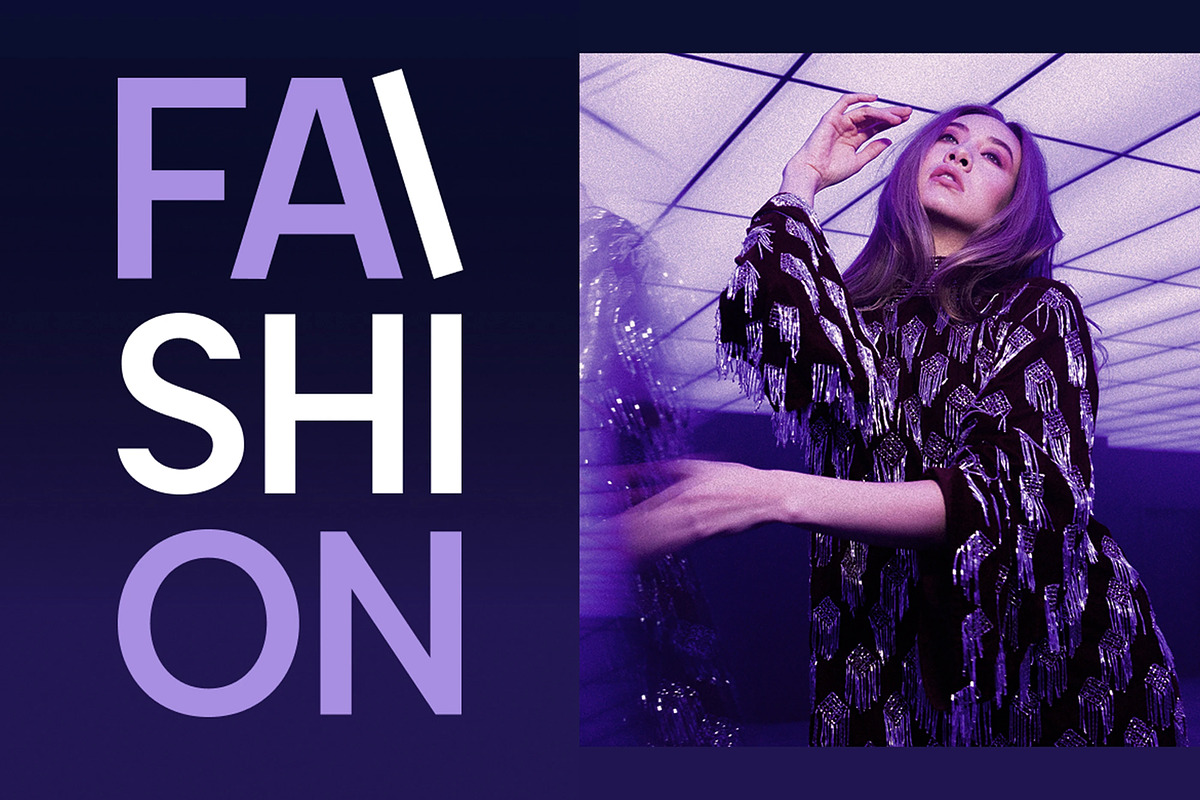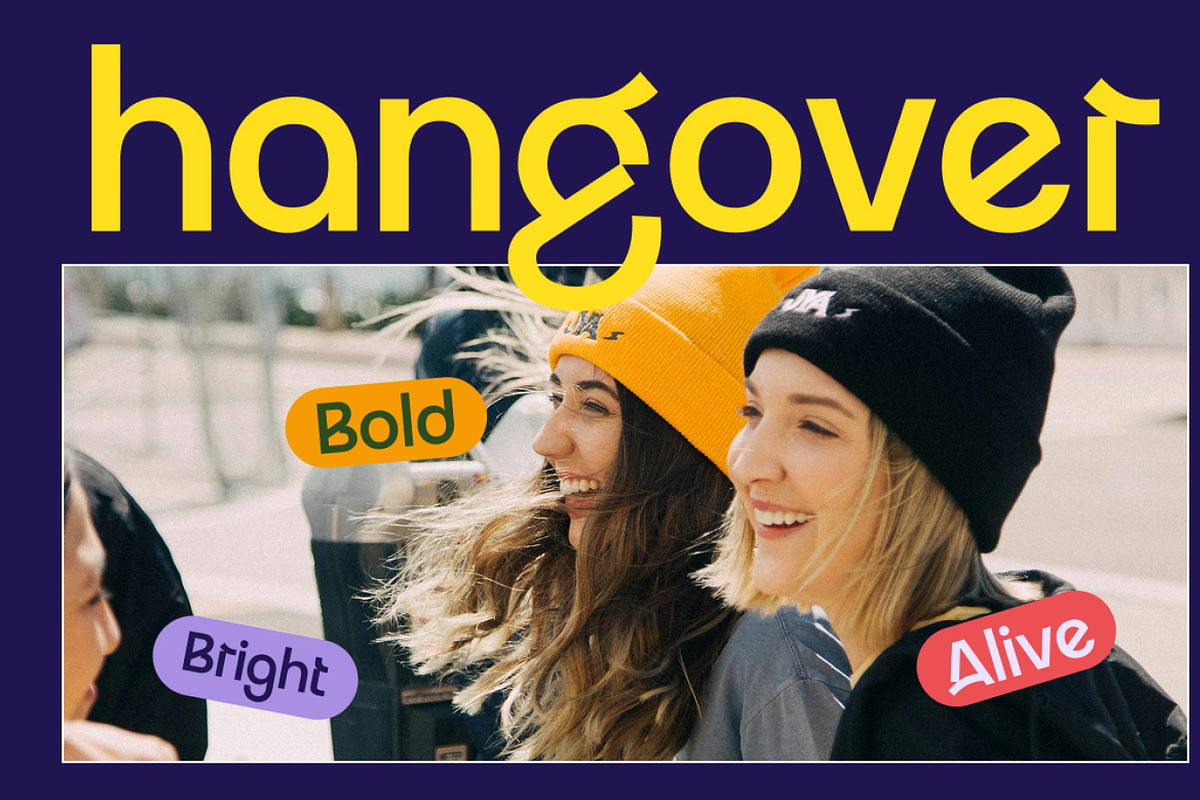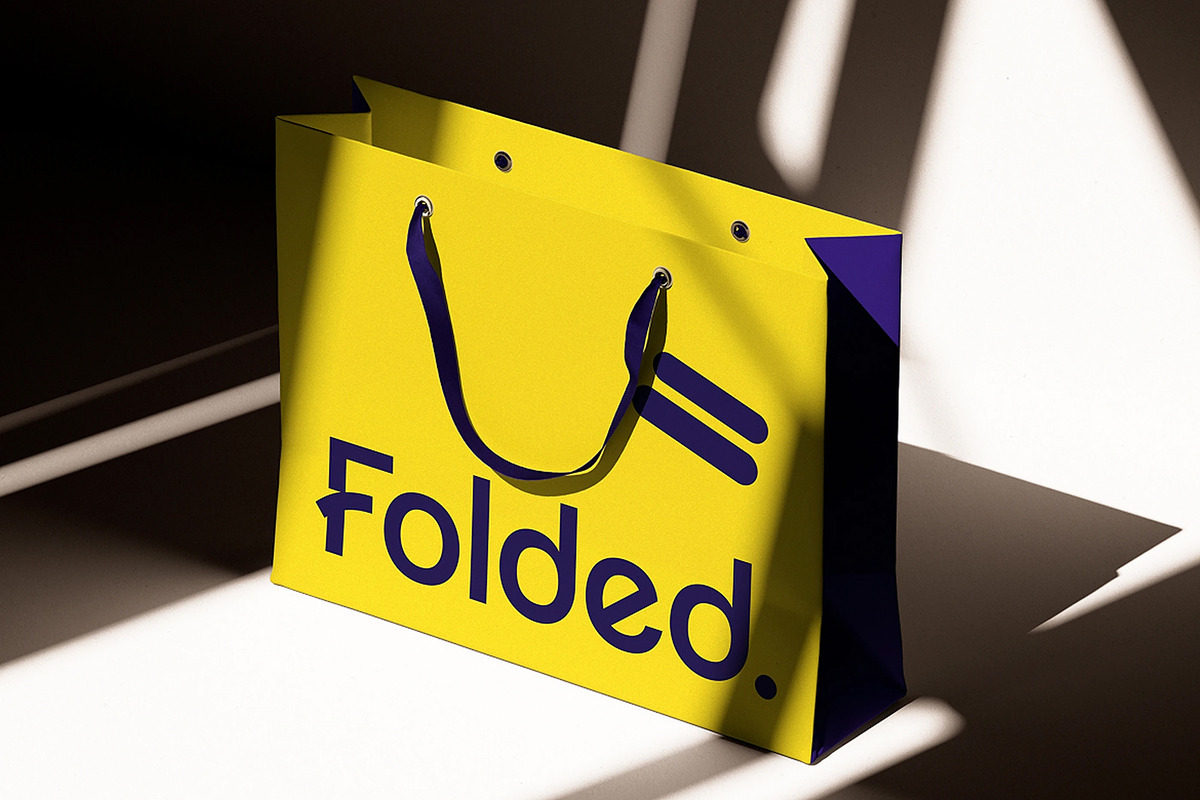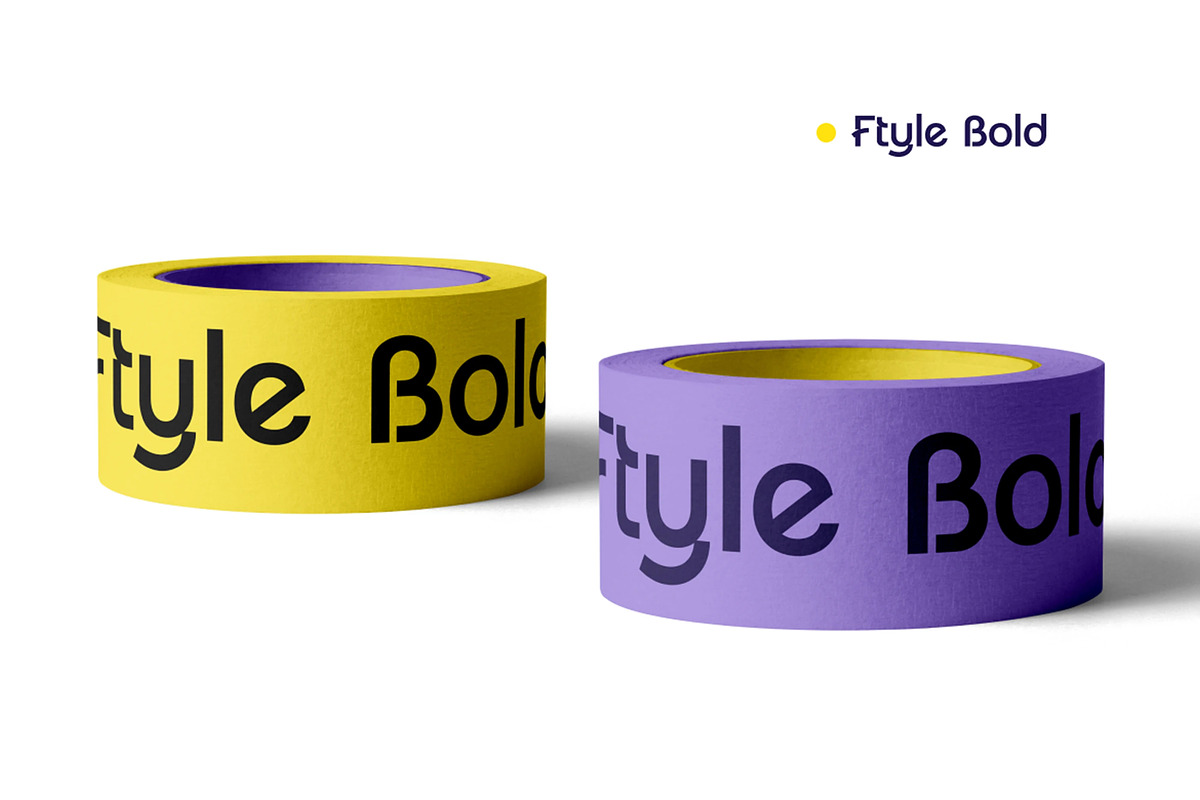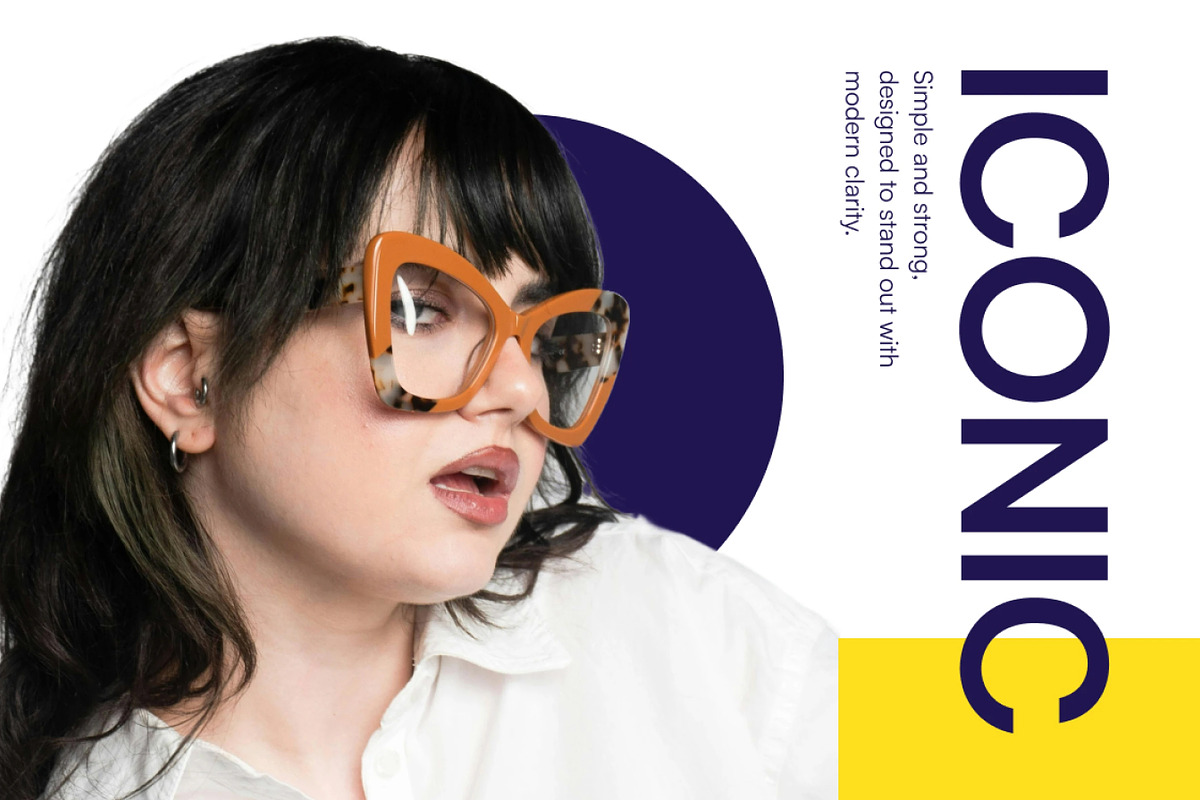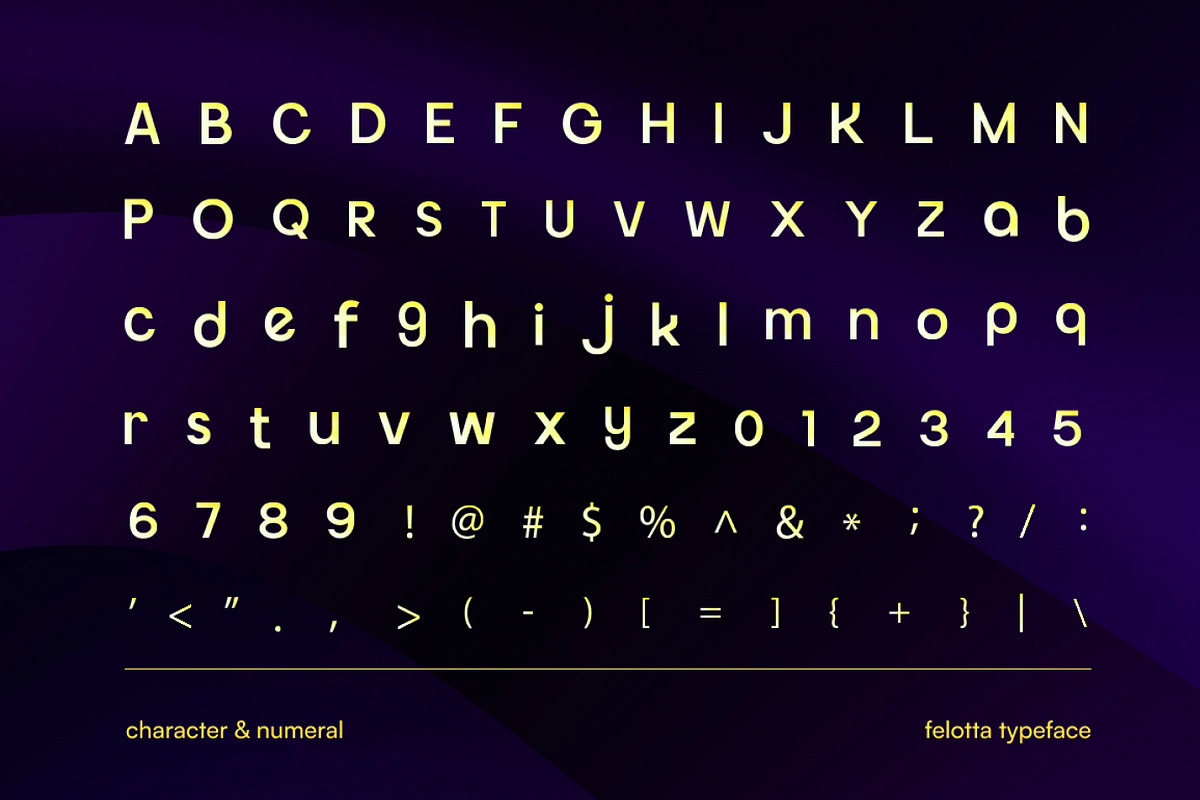
Felotta – Geometric Sans Serif
Felotta is a geometric sans serif typeface. The font's structure provides excellent readability across various sizes, making it suitable for both print and digital media. Designed with clean lines and modern proportions, Felotta is ideal for use in branding systems, editorial layouts, product packaging, web interfaces, and minimalist typographic compositions. Its consistent line weight and contemporary construction support modern design needs while maintaining clarity and functionality.
The letterforms in Felotta are carefully crafted with rounded geometric shapes, consistent stroke weight, and a clean, balanced rhythm that gives the typeface a modern and versatile appearance. It features a minimalist precision that is perfect for branding systems, editorial layouts, and digital interfaces.
With its clean lines and contemporary construction, Felotta bridges the gap between geometric structure and everyday functionality. It provides clarity and consistency while remaining stylish, making it ideal for packaging design, web interfaces, and minimalist typographic compositions.
Main Features
Ligatures & Alternate
Numeral & Punctuations